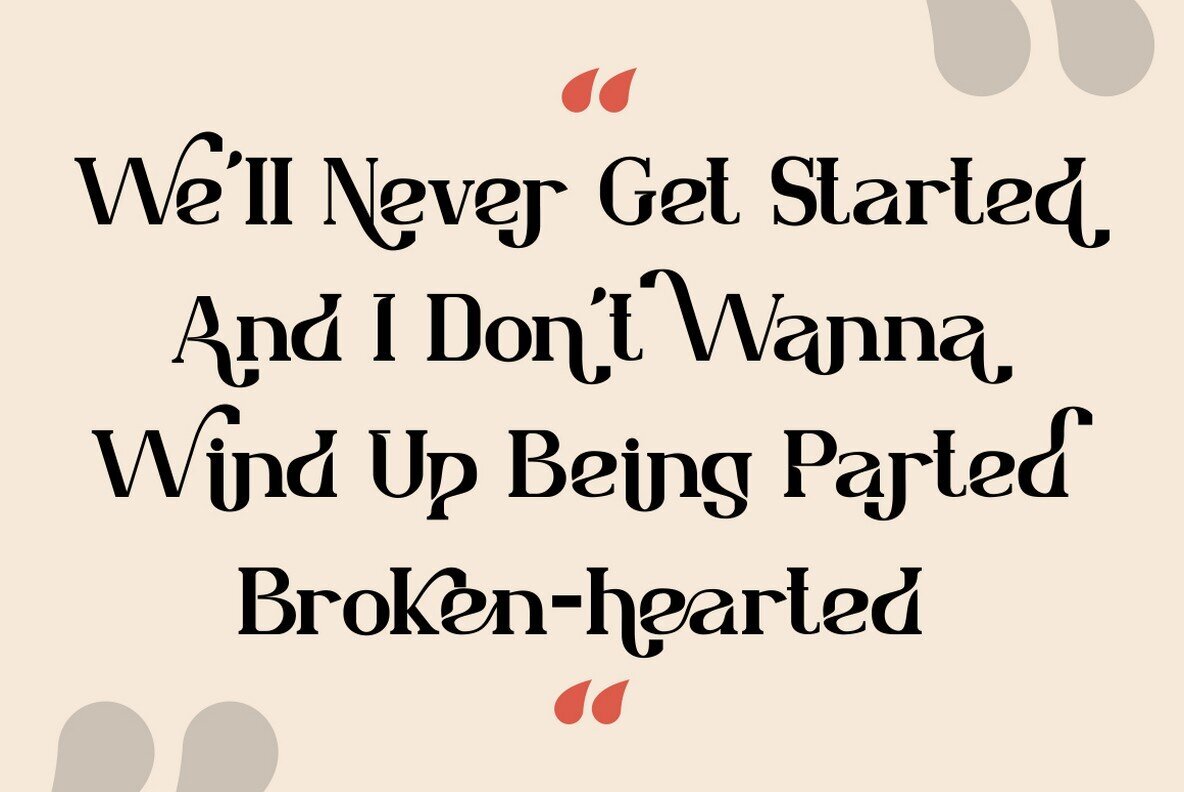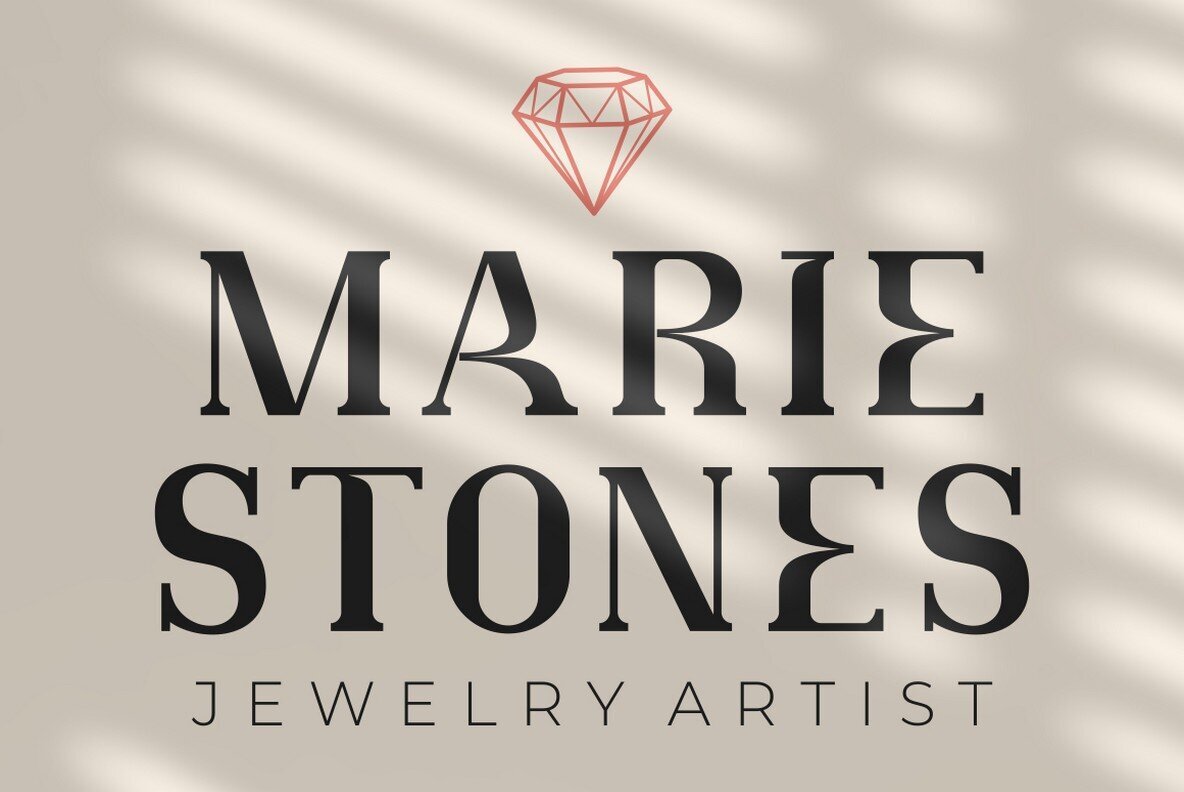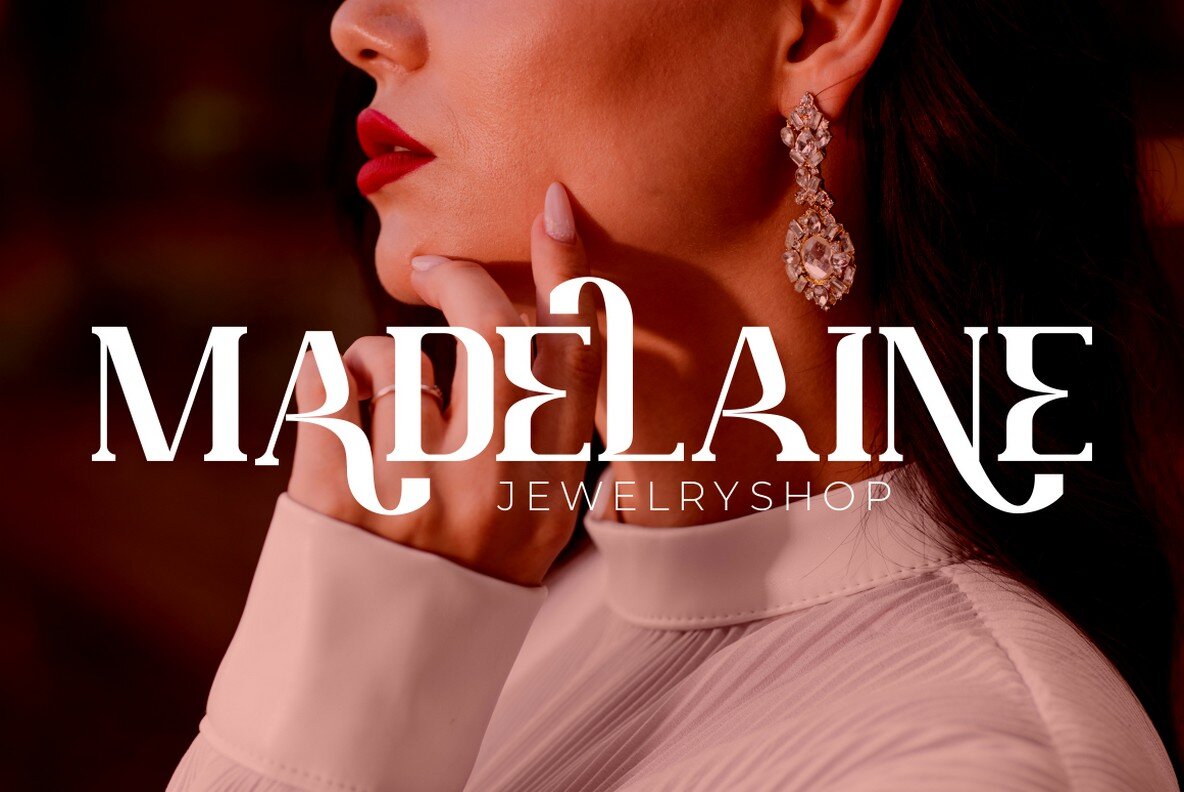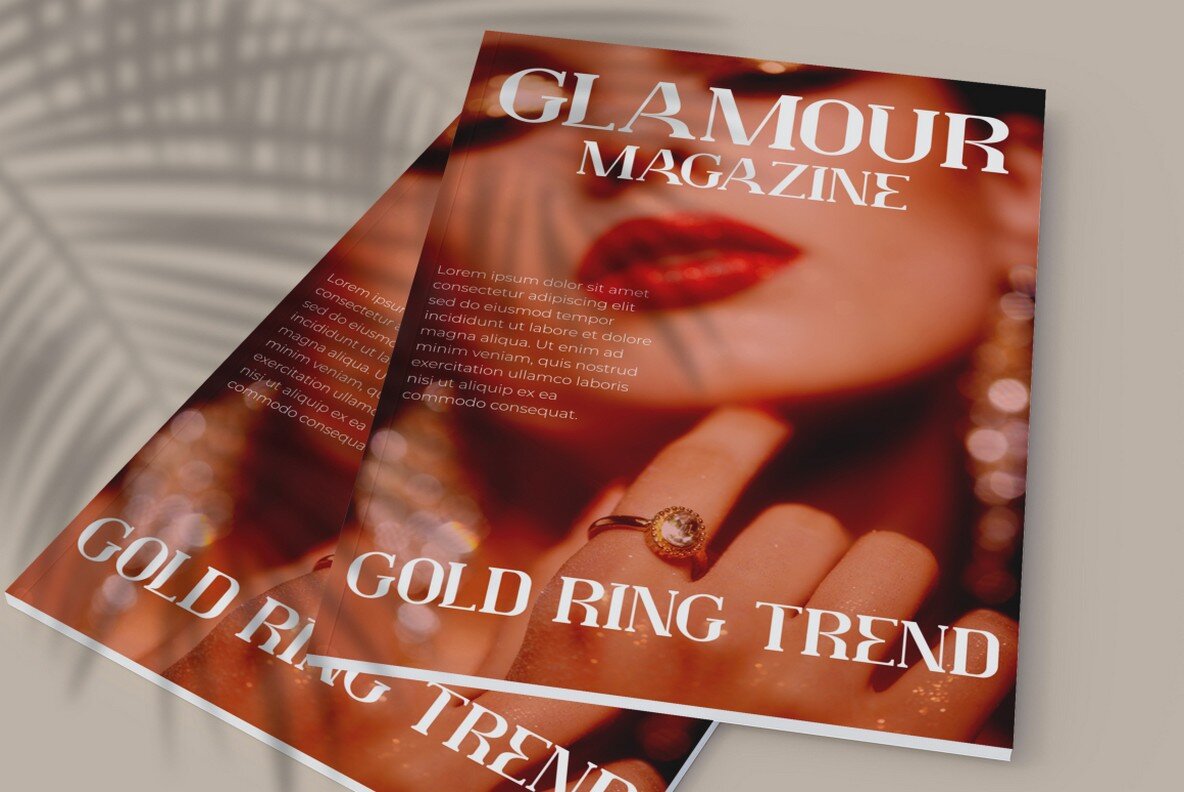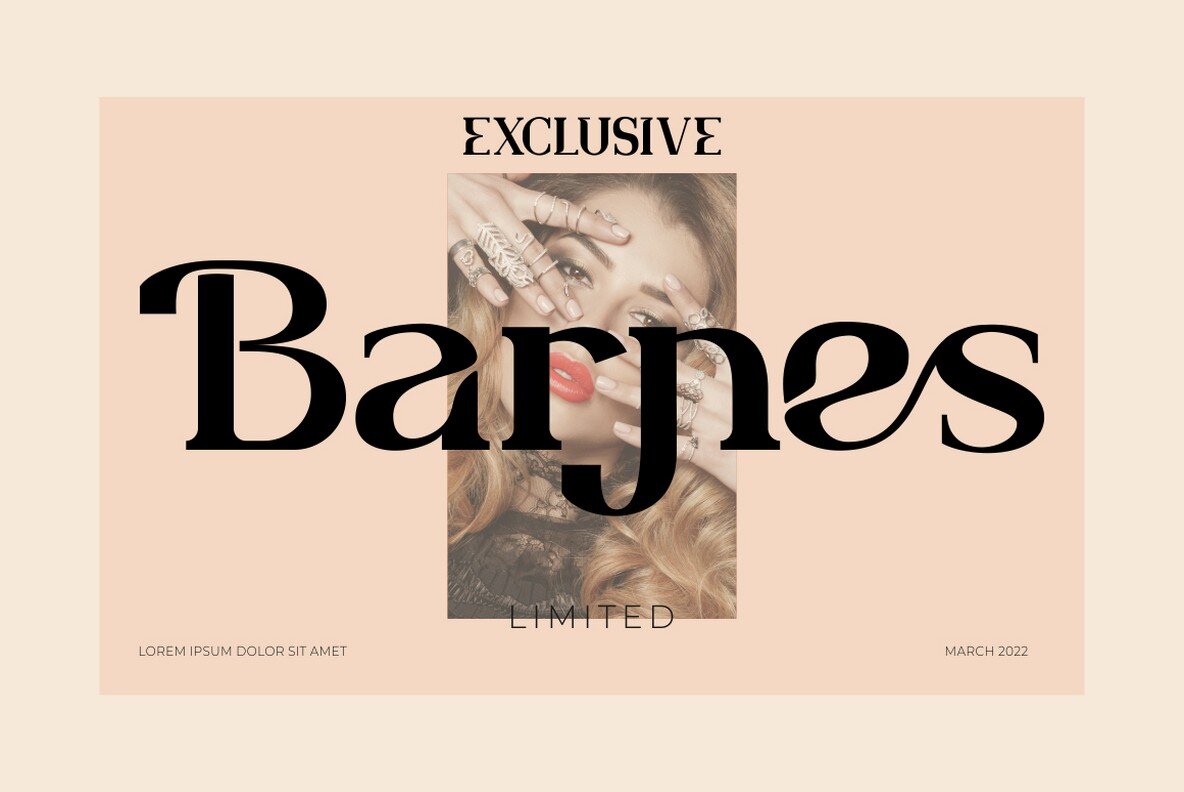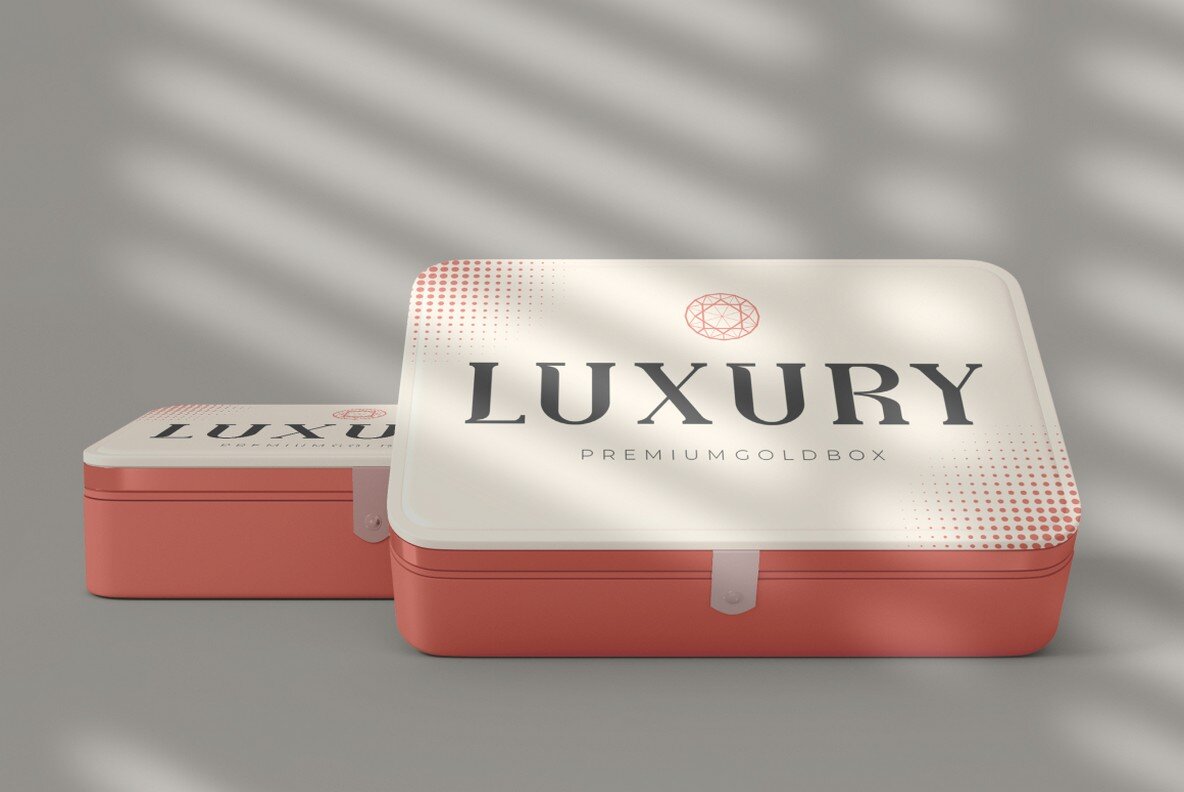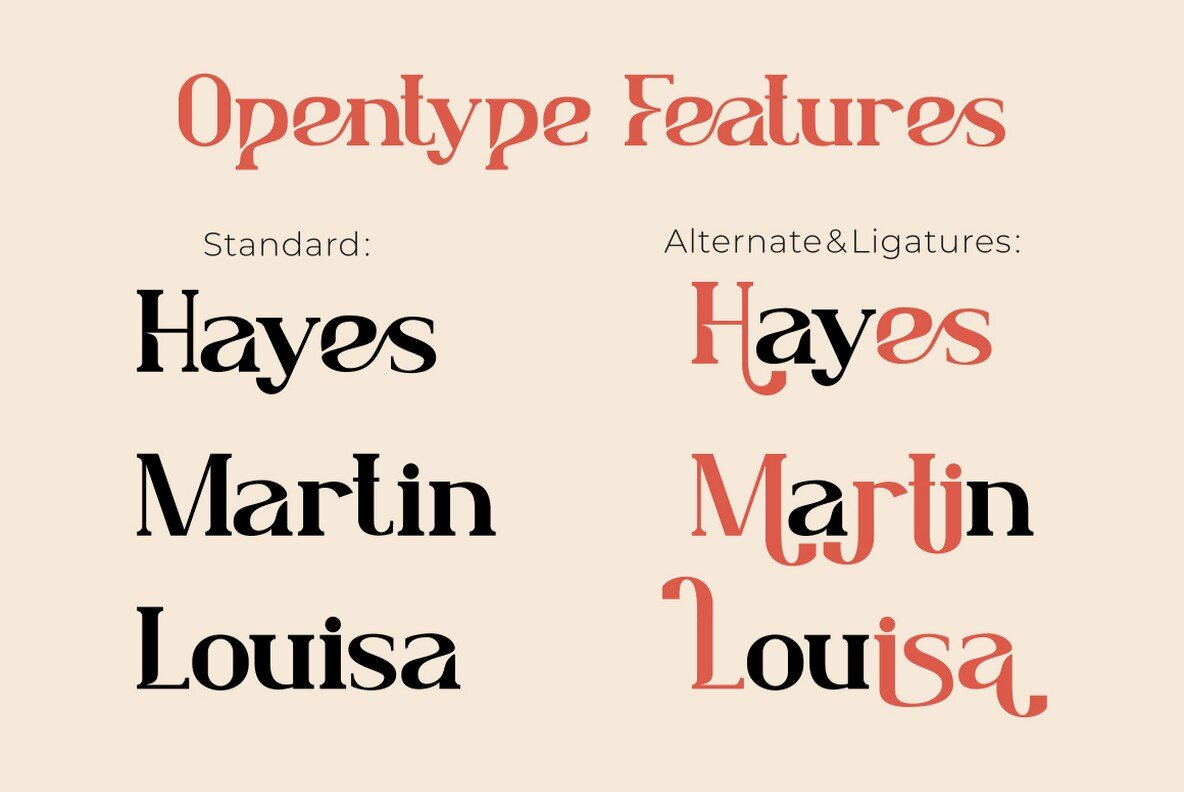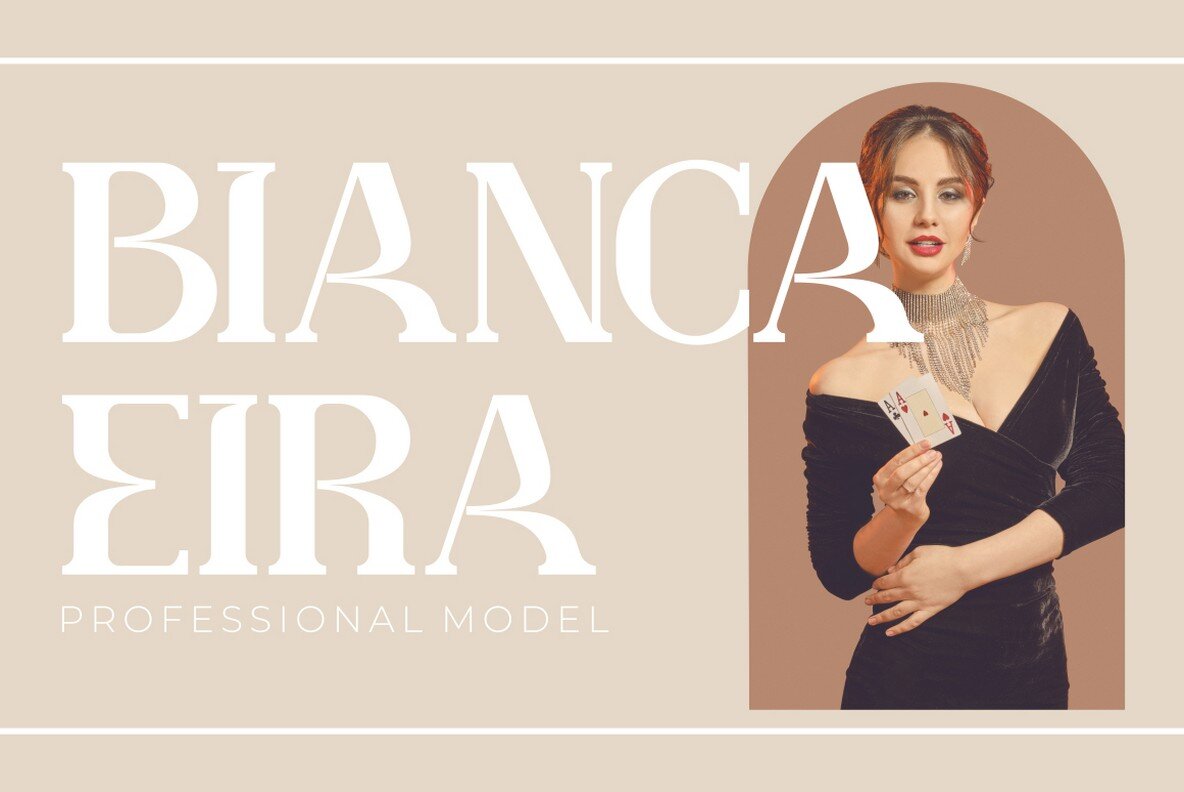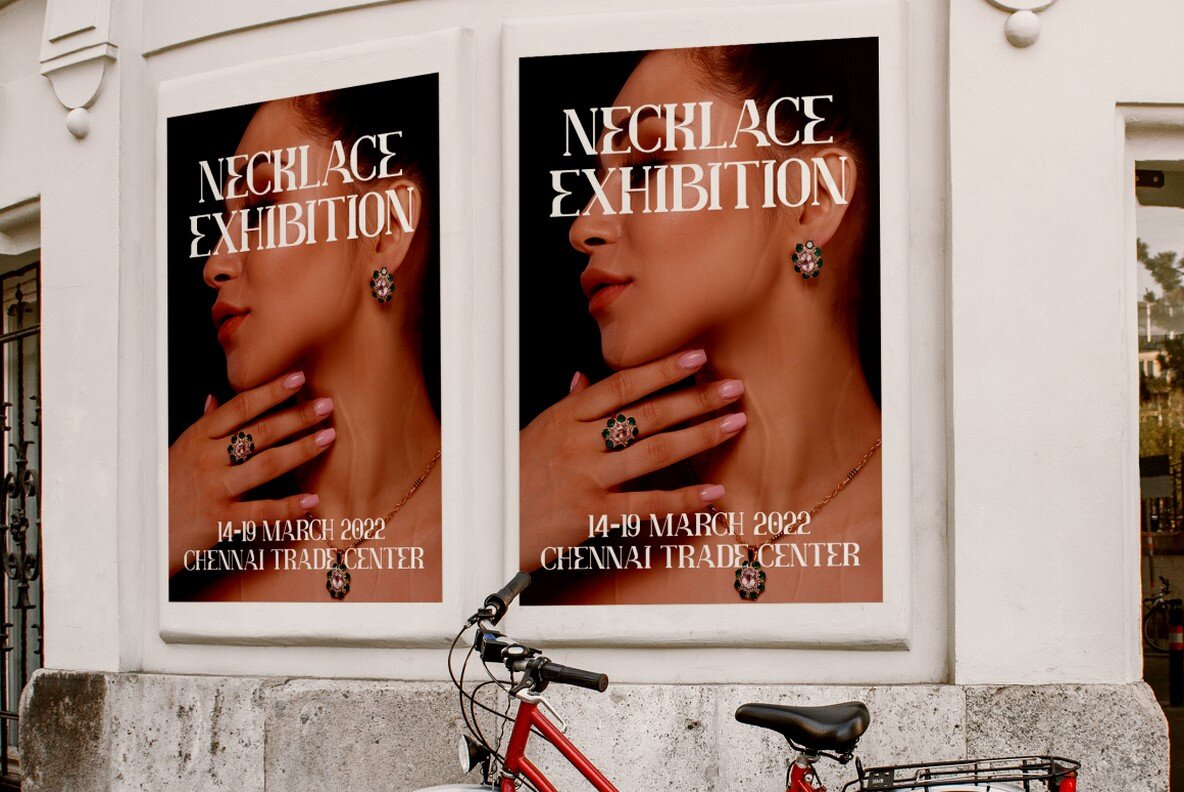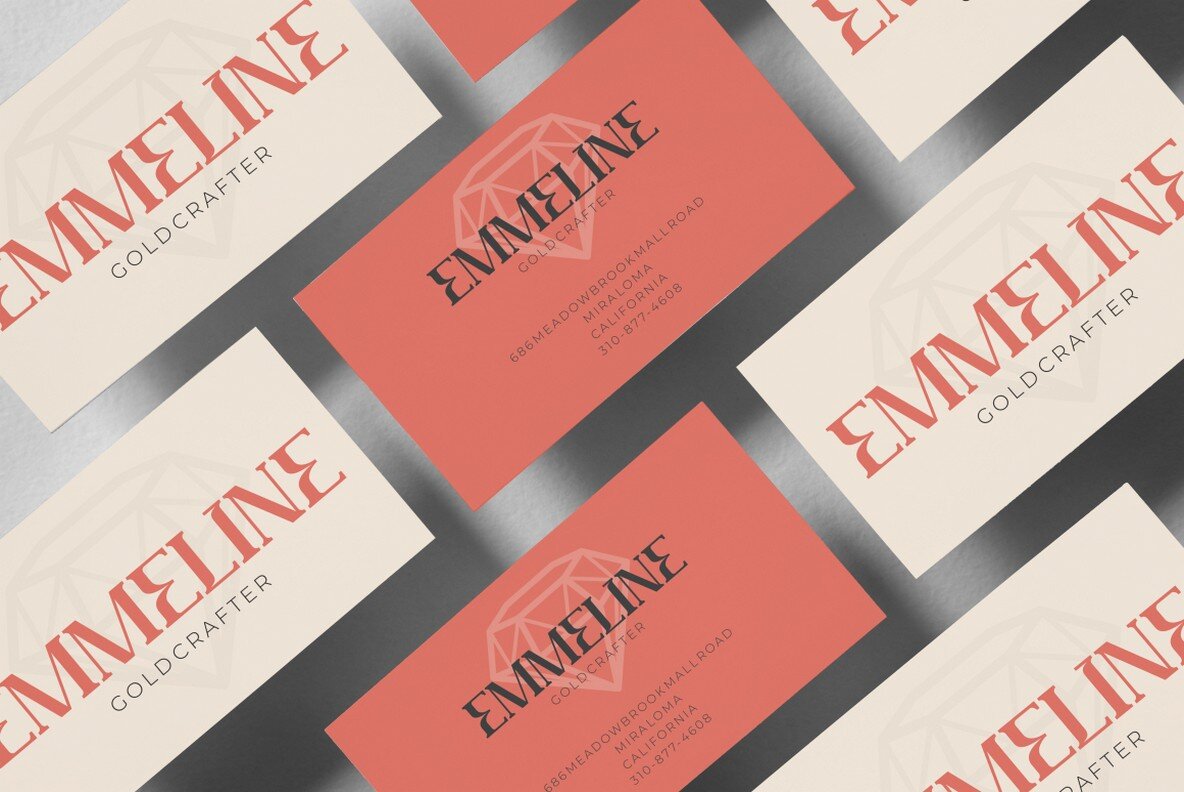
Lafonsa Font
Lafonsa Regular
Delve into the world of elegant typography with Lafonsa, a sophisticated serif font. Inspired by the artistry of traditional lettering and contemporary serif styles, Lafonsa offers a wide array of creative possibilities for designers. This font excels in projects ranging from logotypes and headlines to posters and product packaging, bringing a polished aesthetic to any visual medium. Whether crafting eye-catching logos or elegant greeting cards, Lafonsa is an essential addition to any designer's toolkit. Use with applications supporting OpenType features like Adobe Illustrator, Photoshop, and InDesign to unlock its full potential.Lafonsa: Stylish Serif With Versatile Typography